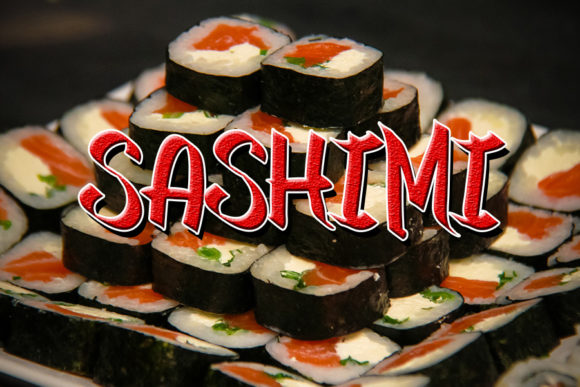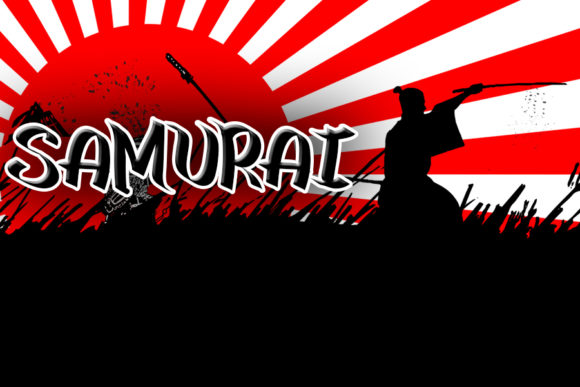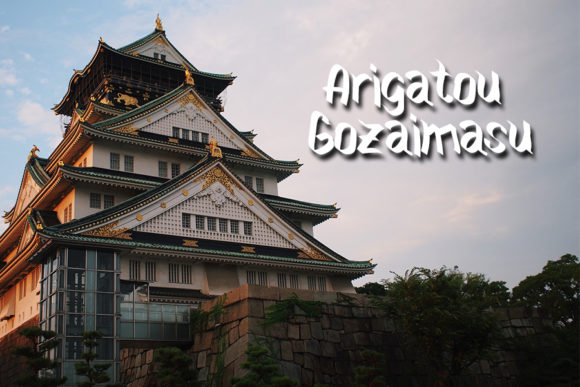
Introduction to Boruto Font
Boruto is an awesome display font that will look stunning on any poster flyer or print.
Use this font for your designs and explore its endless possibilities .
Key Features of Boruto Font
Why Choose Boruto Font?
Boruto Font offers exceptional quality and versatility, making it a valuable addition to your design toolkit. Whether you’re creating for personal projects or commercial use, Boruto Font delivers professional results.